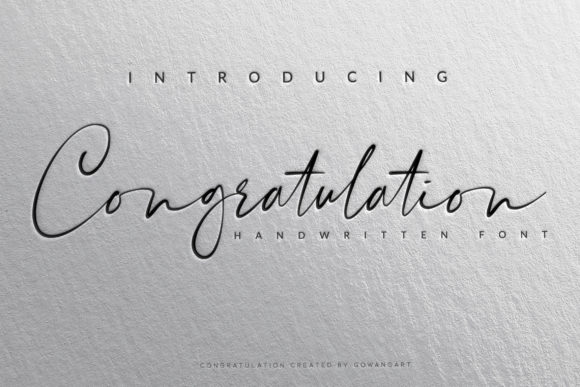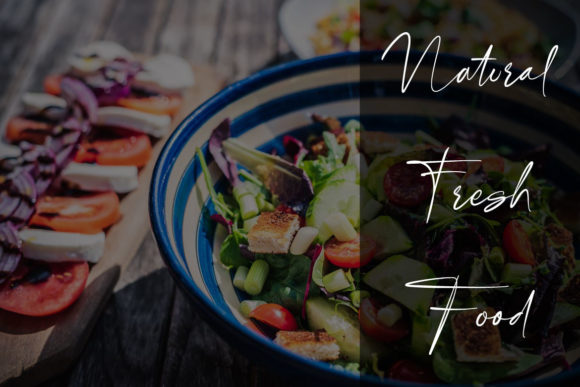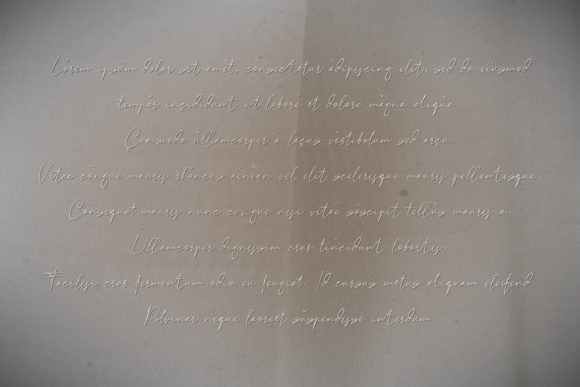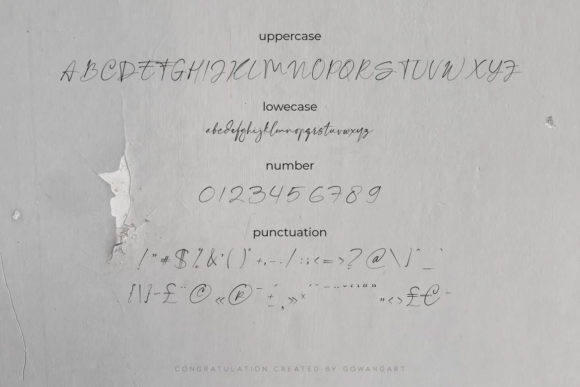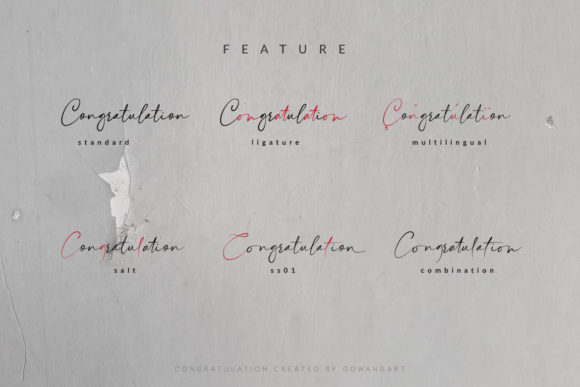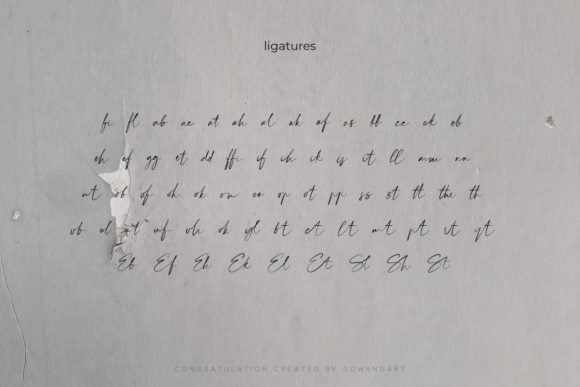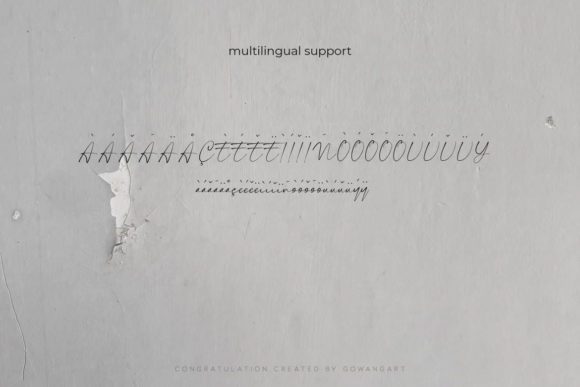
About Congratulation Font
Congratulation feels equally charming and elegant. It looks stunning on a variety of designs. Congratulation is PUA encoded which means you can access all of the glyphs and swashes with ease!